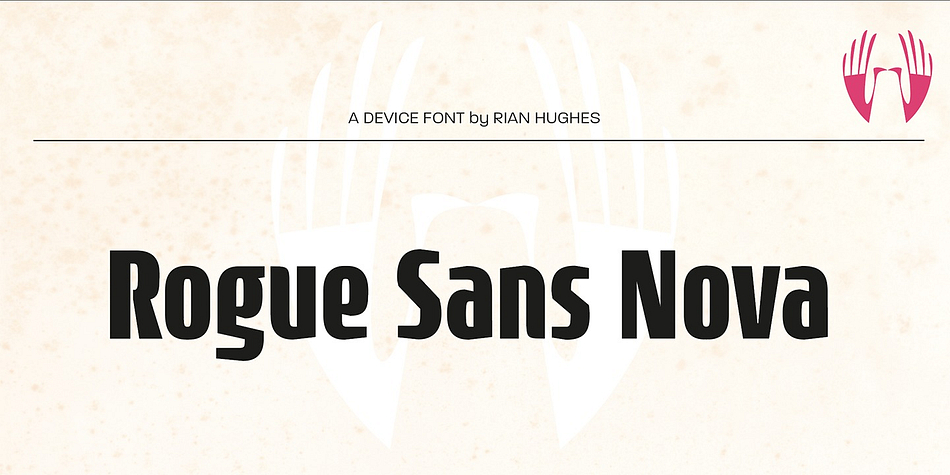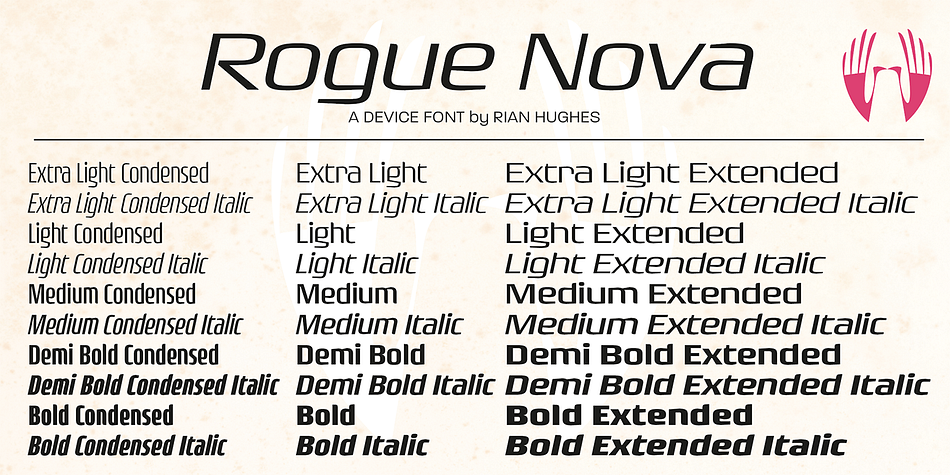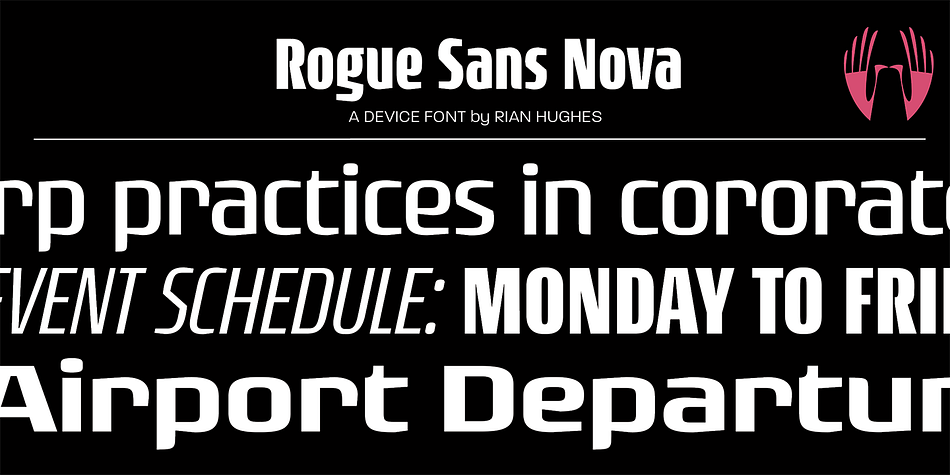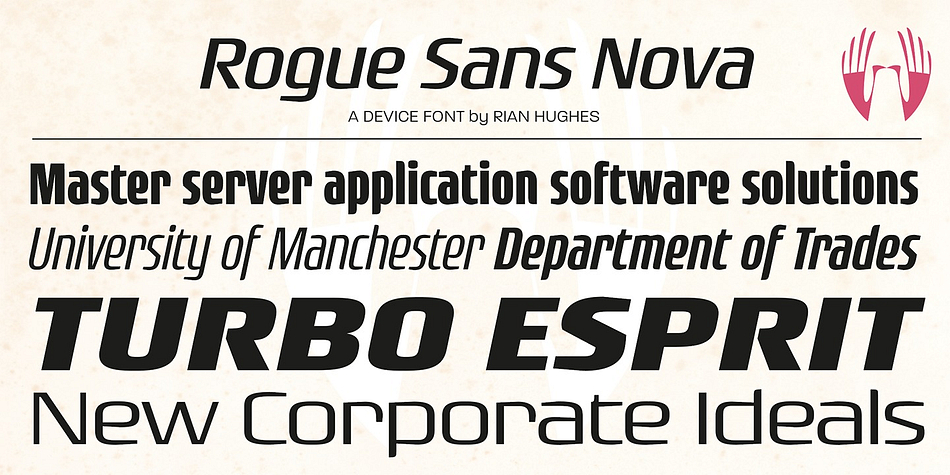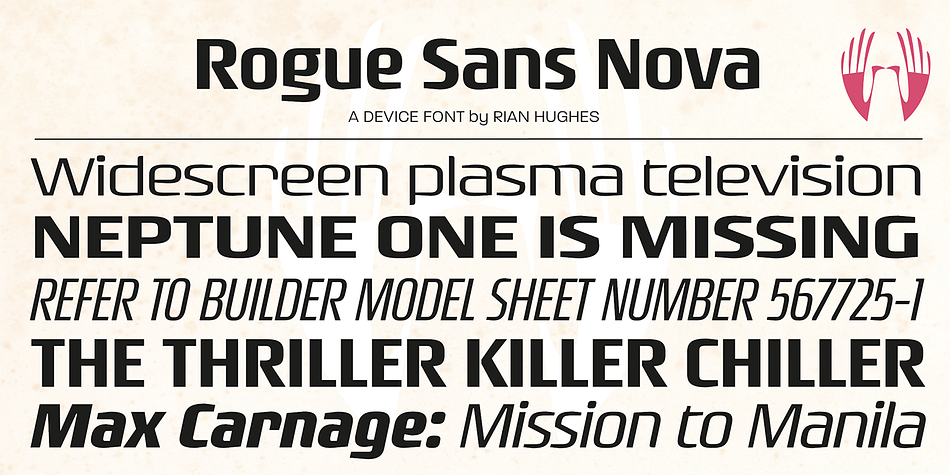
Designed by Rian Hughes, Rogue Sans Nova is a sans serif font family. This typeface has thirty styles and was published by Device.
Originally commissioned by magazine publisher IPC, Rogue has proved to be one of the most popular Device releases.
Now extended and updated as Rogue Nova, it sports additional weights, East European language support and reengineered spacing and kerning. It is now a versatile 30-font family, with five weights and three widths, all with italics.
Powerful and authoritative, sharp-edged and contemporary.